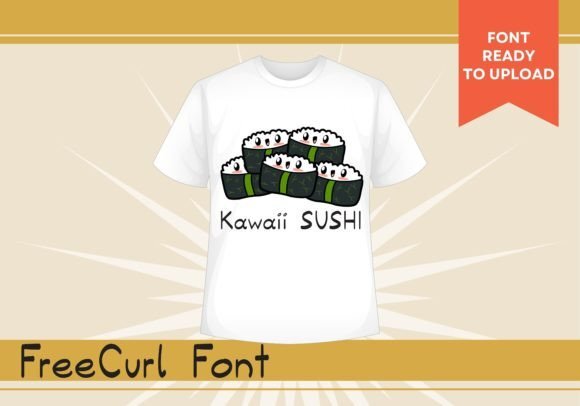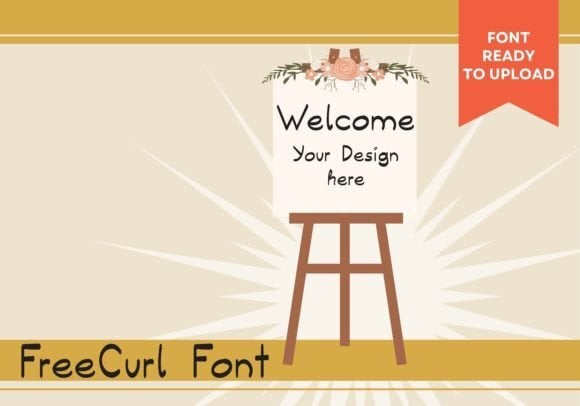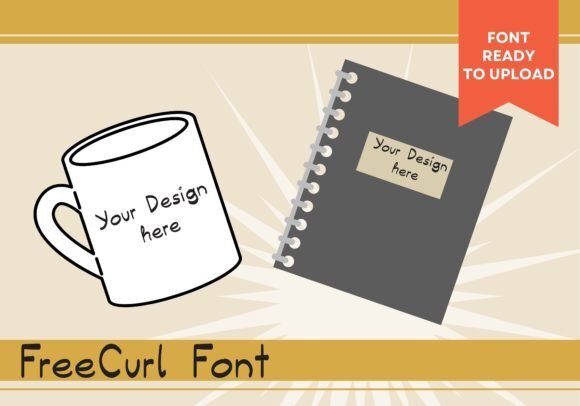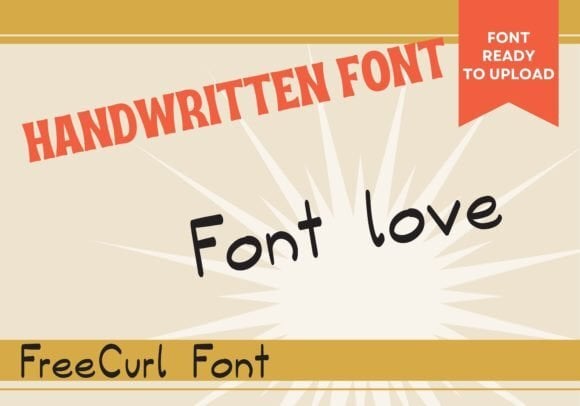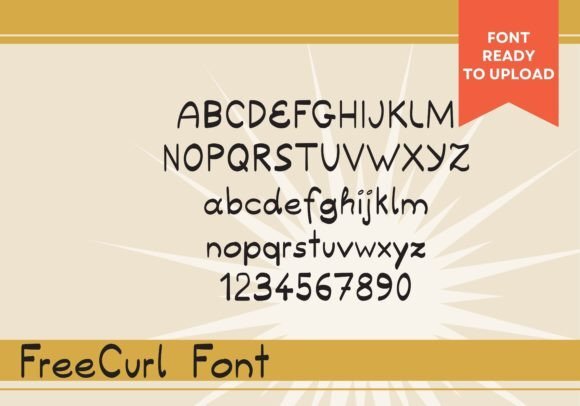
Curl Font
Enhance your designs with the versatile “Curl Font.” This meticulously crafted typeface adds a personal touch to your projects, perfect for both private use and commercial endeavors. Ideal for invitations, branding, logos, and more. Unlock your creativity with Curl Font today!